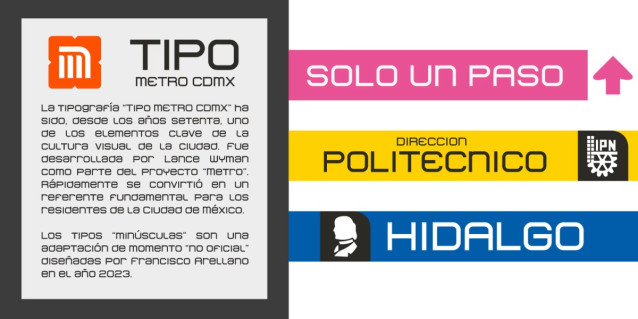
Tipo Metro CDMX Font
Tipo Metro CDMX Font : The “Tipo Metro CDMX” typeface was developed by Lance Wyman as part of the “Metro” project in the 1970s and is one of the key elements of the visual culture of the Metro Collective Transportation System (STC Metro). This style has become the fundamental icon of public transportation for Mexico City residents.
In this edition, the lowercase typefaces are an “UNOFFICIAL” adaptation for Tipo Metro CDMX, enriching the typeface with a visual style of uppercase and lowercase, thus dispensing with Lance Wyman’s original design as his own work. Additionally, some accentuation characters have been added, extending their use to other languages. The typefaces are an adaptation proposed by Ixipcalli in 2023 to emphasize only the use of lowercase characters; the user is free to use the original uppercase version or the adapted lowercase version.